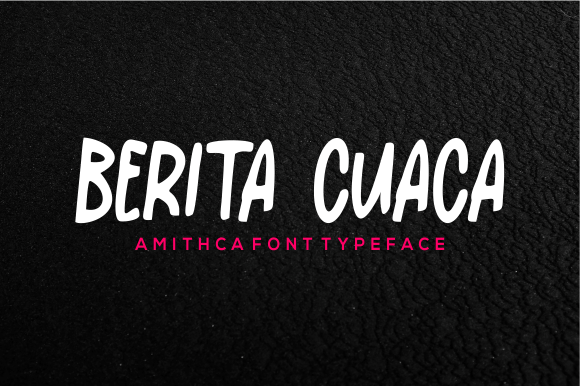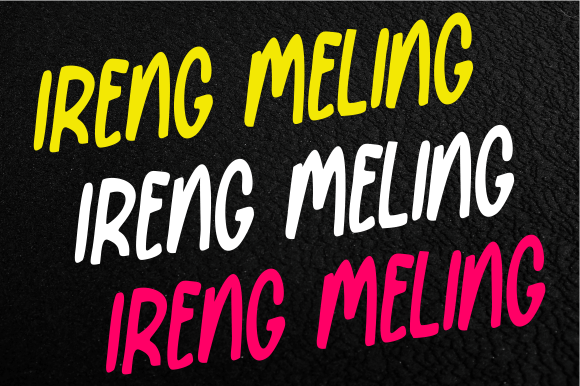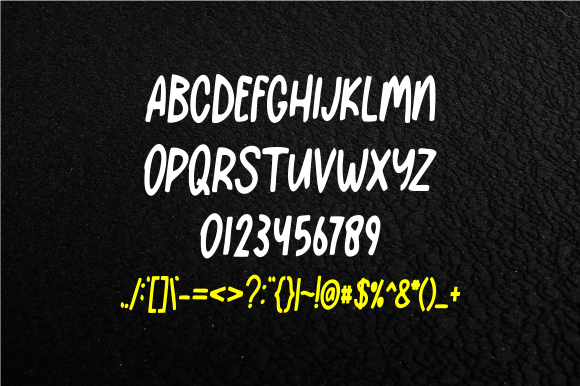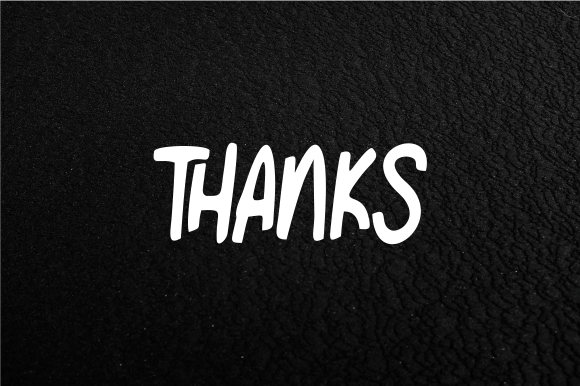
Introducing Amithca Font: The Perfect Addition to Your Crafty Ideas
Are you a designer, crafter, or DIY enthusiast looking for a fresh and casual handwritten font to elevate your creative projects? Look no further than Amithca Font! This charming font is designed to add a personal touch to your crafty ideas, making them stand out from the crowd.
What is Amithca Font?
Amithca Font is a beautifully crafted handwritten font that exudes a sense of friendliness and approachability. Its casual and relaxed vibe makes it perfect for a wide range of creative projects, from DIY crafts and scrapbooking to branding and marketing materials.
Key Features of Amithca Font
- Fresh and Casual Design: Amithca Font boasts a modern and playful design that’s sure to capture the attention of your audience.
- Handwritten Style: The font’s handwritten style adds a personal touch to your projects, making them feel more approachable and relatable.
- Easy to Read: Amithca Font is highly legible, making it perfect for use in a variety of contexts, from body text to headings and titles.
- Versatile: The font is suitable for a wide range of creative projects, including crafty DIY projects, branding, marketing materials, and more.
How to Use Amithca Font in Your Crafty Ideas
Amithca Font is incredibly versatile, making it easy to incorporate into your crafty ideas. Here are a few ways you can use the font to elevate your projects:
- DIY Crafts: Add a personal touch to your DIY crafts, such as handmade cards, gift tags, and scrapbooking pages.
- Branding and Marketing: Use Amithca Font to create eye-catching branding and marketing materials, such as logos, business cards, and social media graphics.
- Scrapbooking: Add a touch of personality to your scrapbooking pages with Amithca Font.
- Paper Crafting: Use the font to create beautiful paper crafting projects, such as handmade cards, gift boxes, and more.
Tips for Getting the Most Out of Amithca Font
To get the most out of Amithca Font, here are a few tips to keep in mind:
- Experiment with Different Sizes: Amithca Font looks great in a variety of sizes, from small body text to large headings and titles.
- Pair with Other Fonts: Try pairing Amithca Font with other fonts to create a unique and eye-catching combination.
- Use in Combination with Images: Amithca Font looks great when used in combination with images and graphics.
Amithca Font is a fresh and casual handwritten font that’s perfect for adding a personal touch to your crafty ideas. With its modern design, highly legible style, and versatility, it’s an excellent choice for designers, crafters, and DIY enthusiasts alike. So why not give Amithca Font a try and see the amazing results for yourself?